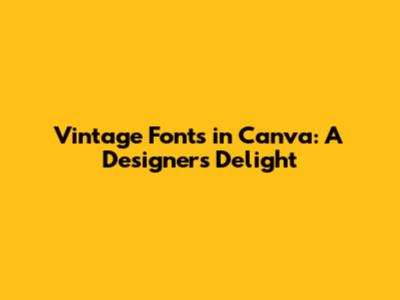
- Vintage Posters: Use bold vintage fonts like League Gothic or Bebas Neue to create eye-catching posters for events, promotions, or announcements. Add distressed textures and retro color palettes for an authentic vintage feel.
- Retro Logos: Combine elegant serif fonts like Cinzel or Playfair Display with classic design elements to create timeless logos for your brand. Use a limited color palette and focus on simplicity and clarity.
- Vintage Invitations: Use script fonts like Amatic SC or handwritten-style fonts to create charming invitations for weddings, parties, or other special occasions. Add floral illustrations and delicate details for a romantic and whimsical touch.
- Social Media Graphics: Incorporate vintage fonts into your social media graphics to add a touch of personality and nostalgia to your posts. Use a mix of fonts, colors, and textures to create visually engaging content that stands out from the crowd.
Hey guys! Are you looking to infuse your designs with a touch of classic elegance or retro charm? Look no further than Canva, your one-stop shop for all things design. And guess what? Canva has a treasure trove of vintage fonts just waiting to be discovered. In this article, we're diving deep into the world of vintage fonts available in Canva, showing you how to find them, use them, and create stunning designs that stand the test of time.
Why Use Vintage Fonts?
Before we jump into the specifics, let's talk about why you might want to use vintage fonts in the first place. Vintage fonts evoke a sense of nostalgia, taking us back to different eras with their unique styles. They can add character, personality, and a touch of authenticity to your designs. Whether you're creating a logo, designing a poster, or crafting social media graphics, vintage fonts can help you tell a story and connect with your audience on a deeper level.
Vintage fonts aren't just about aesthetics; they're also about communication. The right font can convey a specific mood or feeling, whether it's the elegance of the Art Deco era or the boldness of mid-century advertising. By carefully selecting a vintage font, you can enhance your message and create a design that truly resonates with your target audience. Plus, using vintage fonts can help your designs stand out from the crowd, giving them a unique and memorable look.
Think about the brands that have successfully used vintage fonts in their branding. Coca-Cola, for example, has been using its iconic Spencerian script for over a century, creating a sense of tradition and familiarity. Similarly, many craft breweries and coffee shops use vintage fonts to evoke a sense of craftsmanship and authenticity. By incorporating vintage fonts into your designs, you can tap into these associations and create a brand that feels timeless and trustworthy. So, if you're looking to add a touch of history and character to your designs, vintage fonts are definitely the way to go.
Discovering Vintage Fonts in Canva
Okay, so you're sold on the idea of using vintage fonts. Now, how do you find them in Canva? Canva's font library is vast, but don't worry, we've got you covered. One of the easiest ways to find vintage fonts is to use the search bar. Simply type in keywords like "vintage," "retro," "classic," or specific styles like "Art Deco" or "script." Canva will then display a selection of fonts that match your search terms.
Another great way to discover vintage fonts is to explore Canva's font categories. Canva organizes its fonts into various categories, such as serif, sans-serif, script, and display fonts. Within these categories, you can often find vintage-inspired options. For example, the "script" category is a great place to find elegant, handwritten-style fonts that evoke the charm of vintage calligraphy. The "display" category, on the other hand, might contain bolder, more attention-grabbing fonts that were popular in vintage advertising.
Don't be afraid to experiment with different search terms and categories to see what you can find. You might be surprised at the hidden gems you uncover! And remember, you can always preview a font before using it in your design. Canva allows you to type in your own text and see how it looks in different fonts, so you can make sure you're choosing the perfect font for your project. Also, keep an eye out for font pairings. Canva often suggests complementary fonts that work well together, which can be a great way to create a cohesive and visually appealing design. With a little bit of exploration, you'll be able to find a wide variety of vintage fonts in Canva that will add character and style to your creations.
Top Vintage Font Picks in Canva
Alright, let's get down to the nitty-gritty. Here are some of my absolute favorite vintage fonts available in Canva that you should definitely check out:
1. Cinzel
Cinzel is a classic serif font that exudes elegance and sophistication. Inspired by Roman inscriptions, it's perfect for adding a touch of timeless beauty to your designs. Use it for headlines, logos, or body text to create a sense of refinement and class. Cinzel is particularly well-suited for projects that require a formal or historical feel.
2. Playfair Display
Playfair Display is another elegant serif font that's perfect for headlines and titles. With its high contrast and delicate serifs, it adds a touch of sophistication to any design. Playfair Display is a great choice for projects that require a touch of luxury or glamour. Its versatility makes it suitable for both print and digital applications, ensuring your message is conveyed with style and clarity.